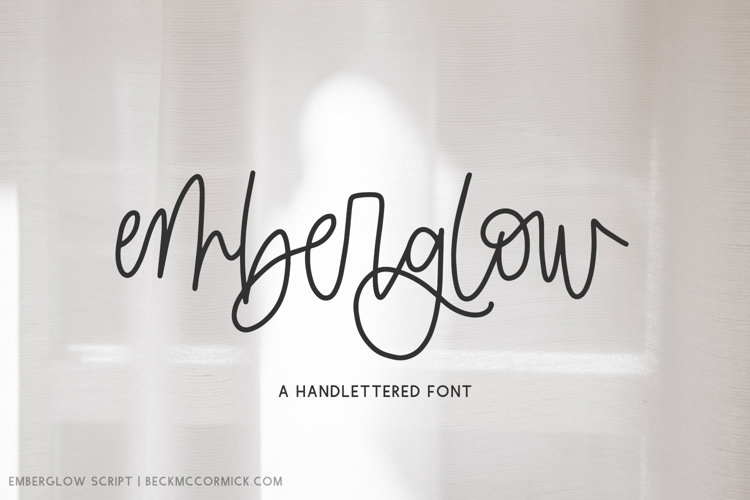
Emberglow Script
Introducing Emberglow Script, a monoline handlettered font with a varied baseline. Emberglow is packed full of discretionary ligature and a variety of alternate characters so that you can customize your text to make it look truly handwritten.
Emberglow is best for:
- website design + website accents
- label design
- contemporary wall art
- crafting with Cricut or Silhouette machines
Emberglow includes:
- 84 alternate characters
- 125 ligatures (standard & discretionary) - ab ad af ah ak al am an ar as at az bb bl br bs cc ce ch cr cs db dd df dh dl dr ds dt dy ea eb ed ee el em en er es ex ez ff fj fl fo fr fs ft fz gg gh gr gs he hf hr hs hx il im in ir is it iz jr js kr ks ll lr ls mm mr ms nn nr ns nt om on oo or os ot ou ov ow ph pp pr ps qr qs rj rr rs rx sh sm sn sr ss st th tl tr ts tt uh um un ur us uz vr vs wr ws xr xs yr ys zr zs